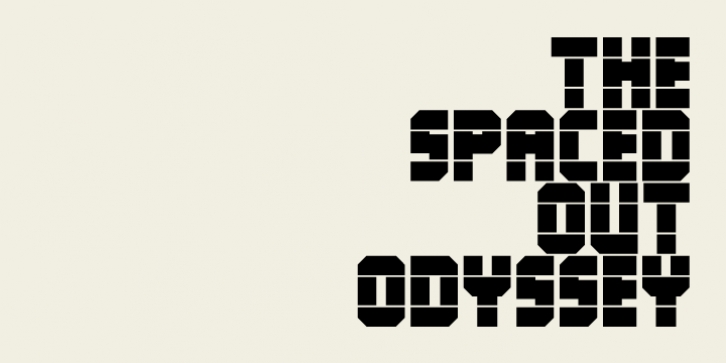
Publisher: The Northern Block Ltd
QueueBrick is an 8 font family consisting of 4 weights Open & 4 weights Closed. A block-work typeface inspired by East European movie posters.
Example includes Stanley Kubricks 2001: A Space Odyssey.